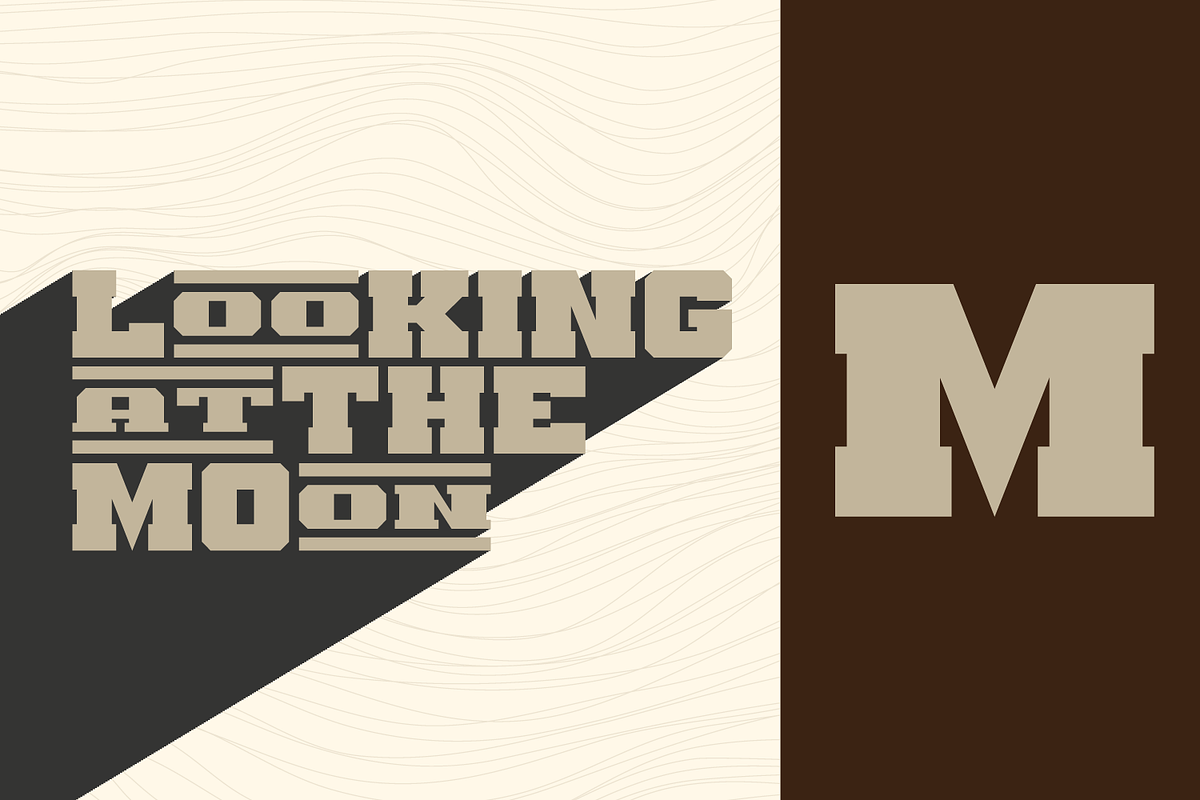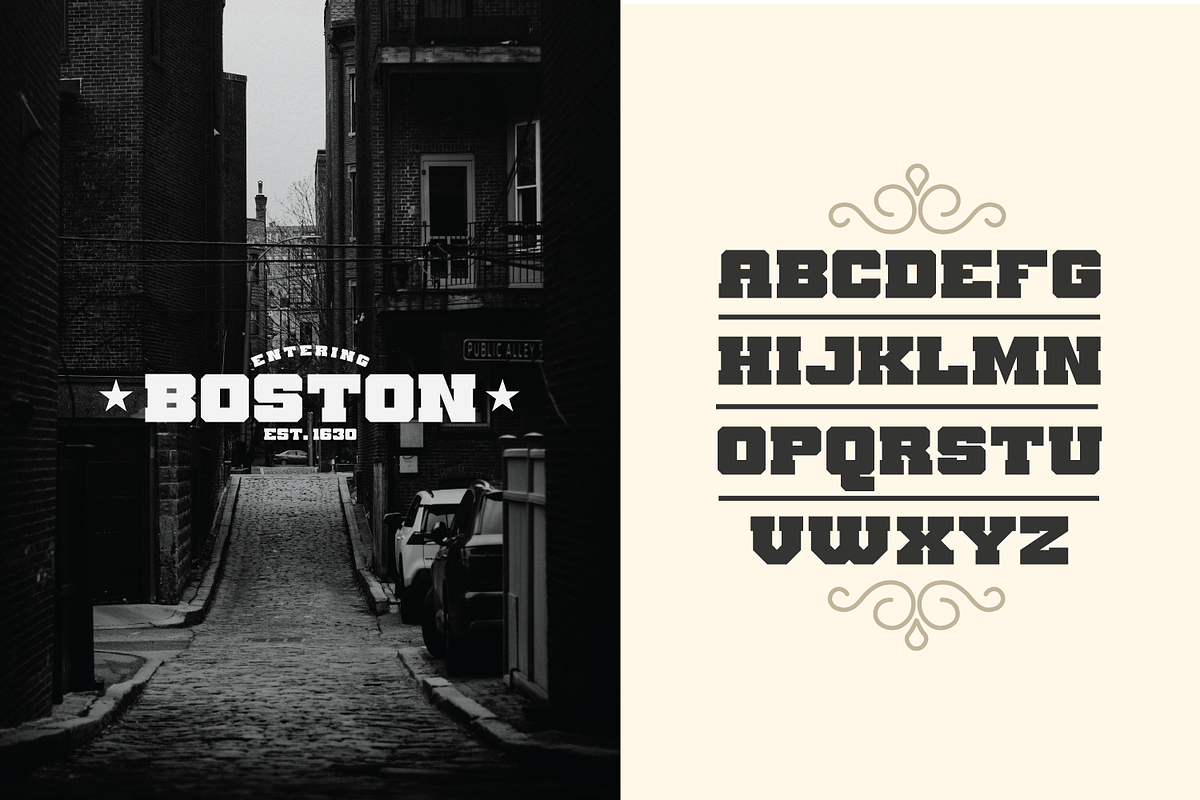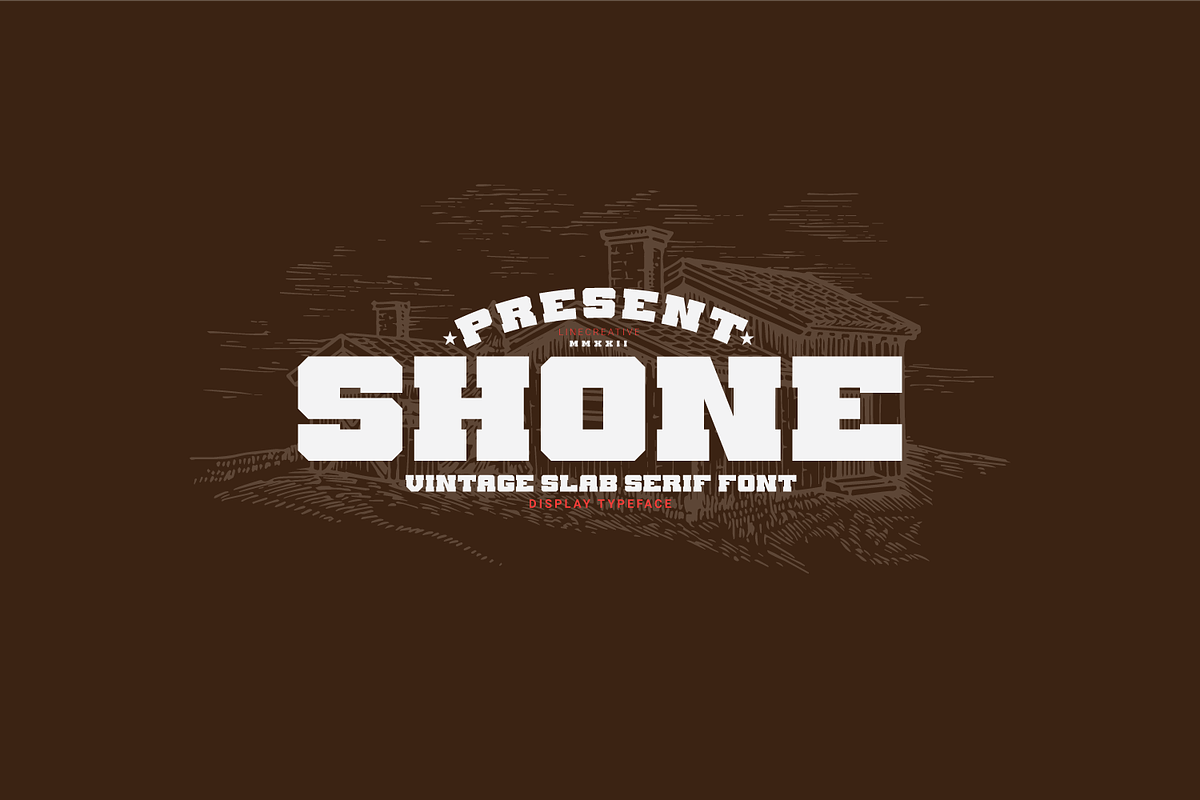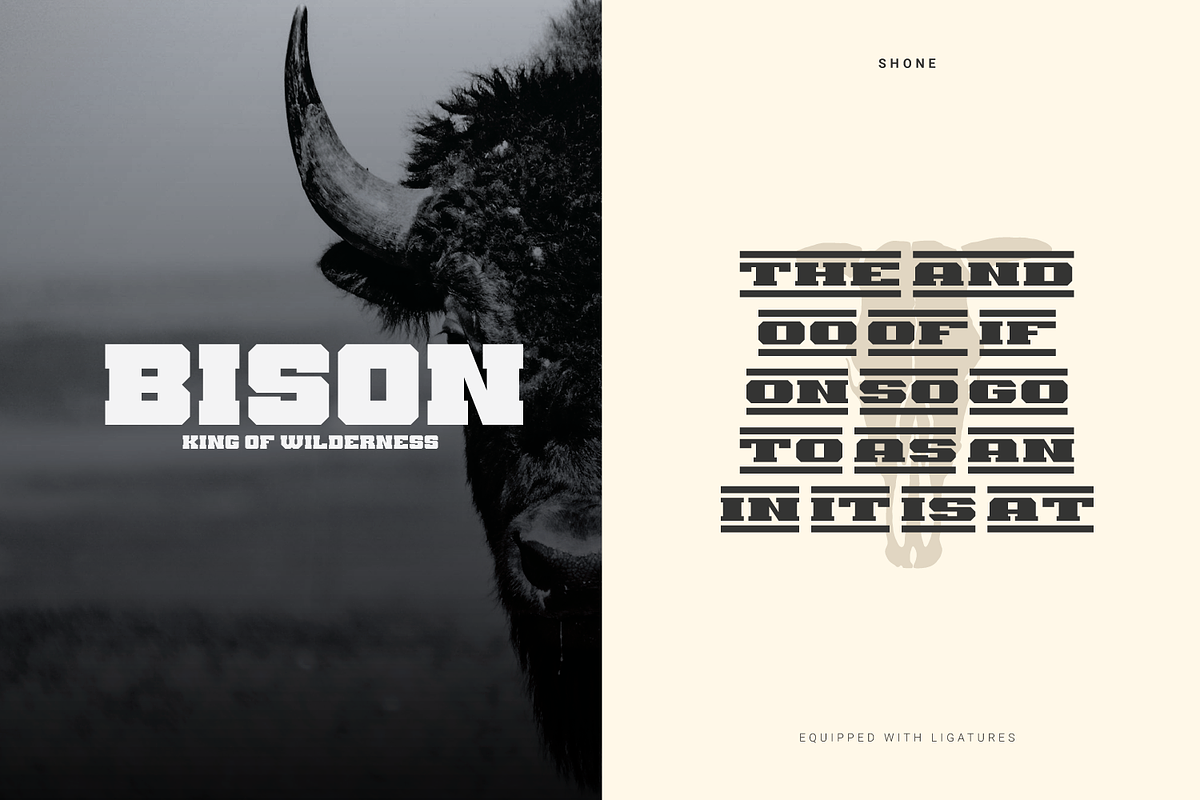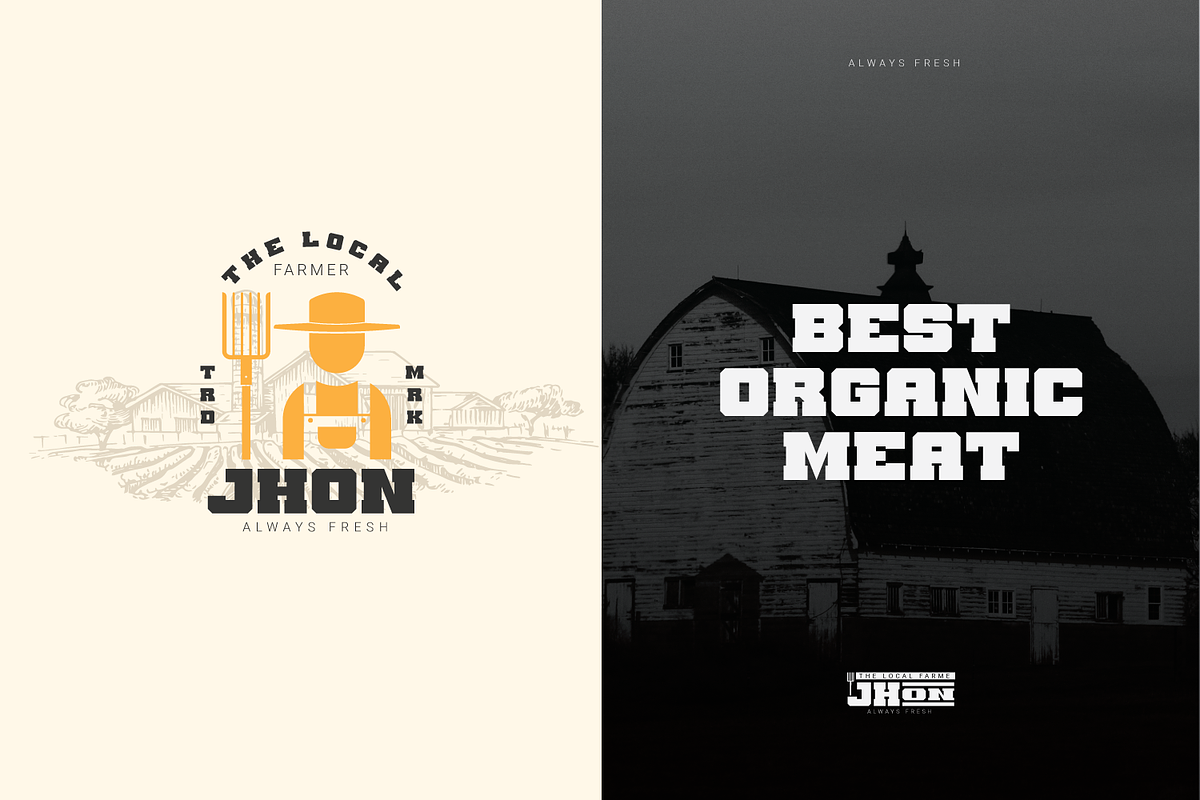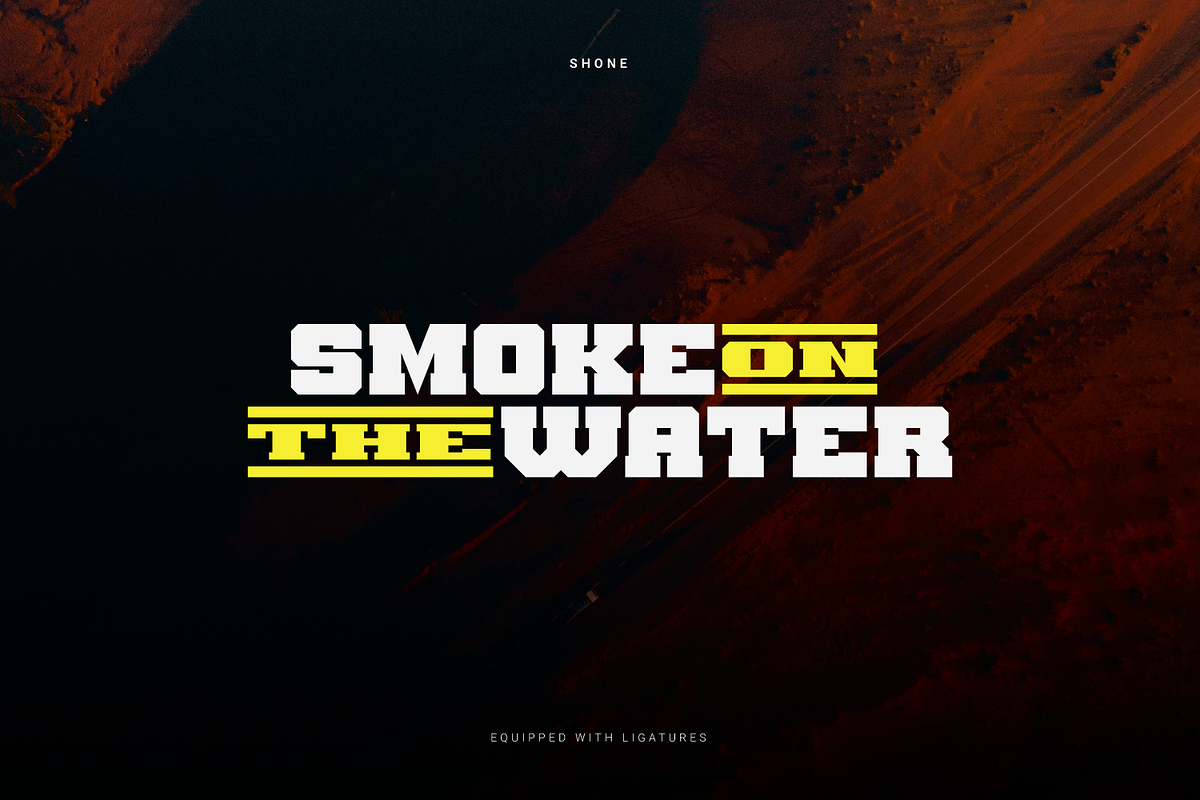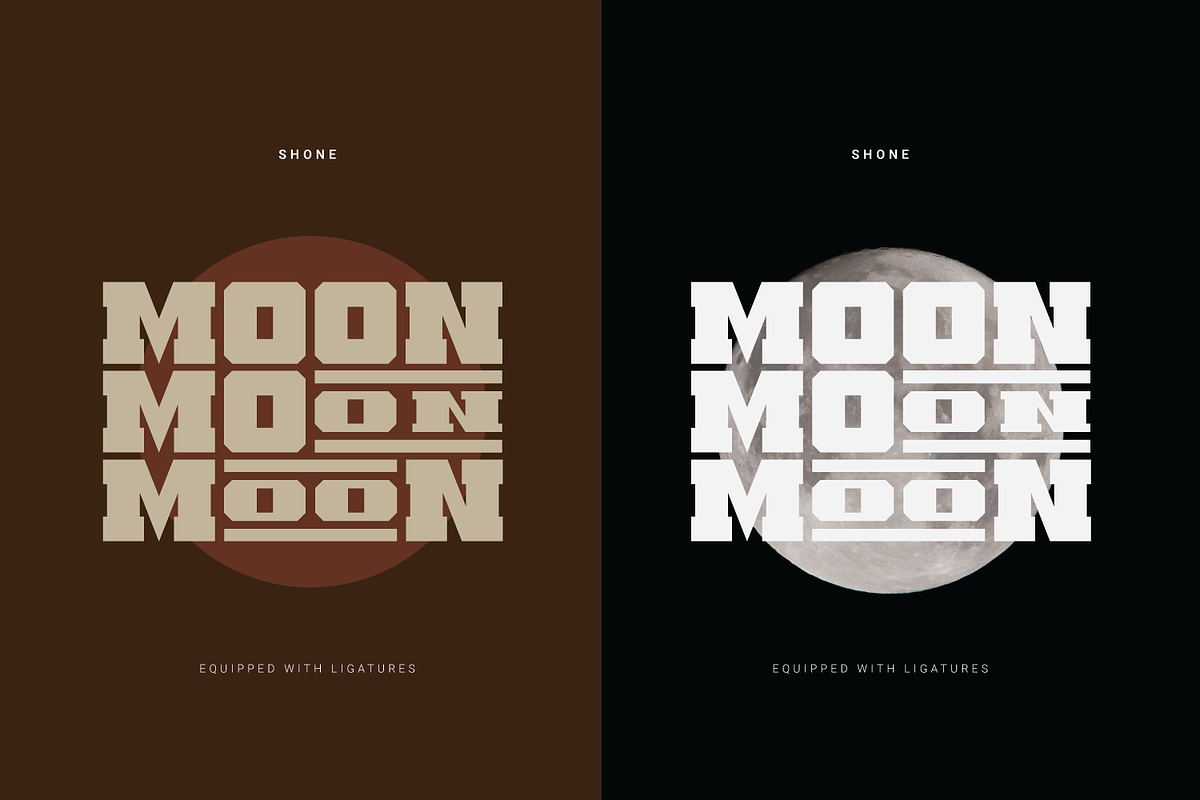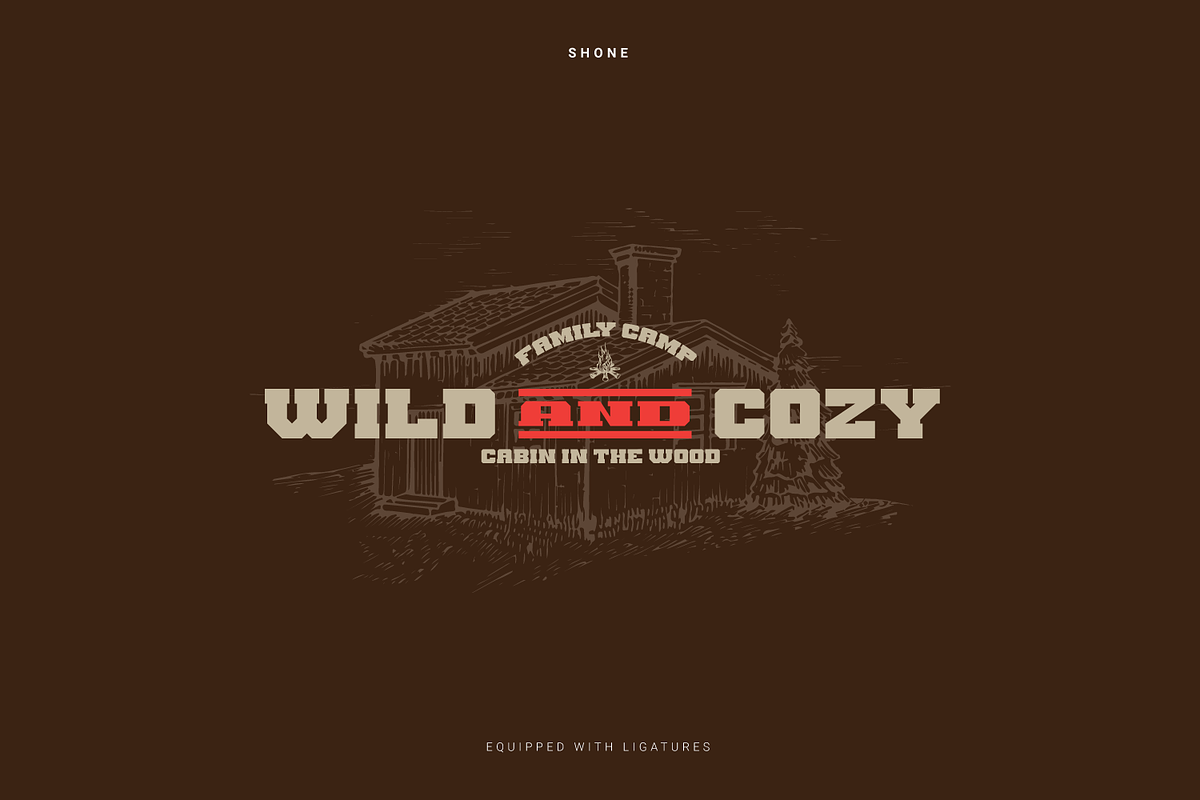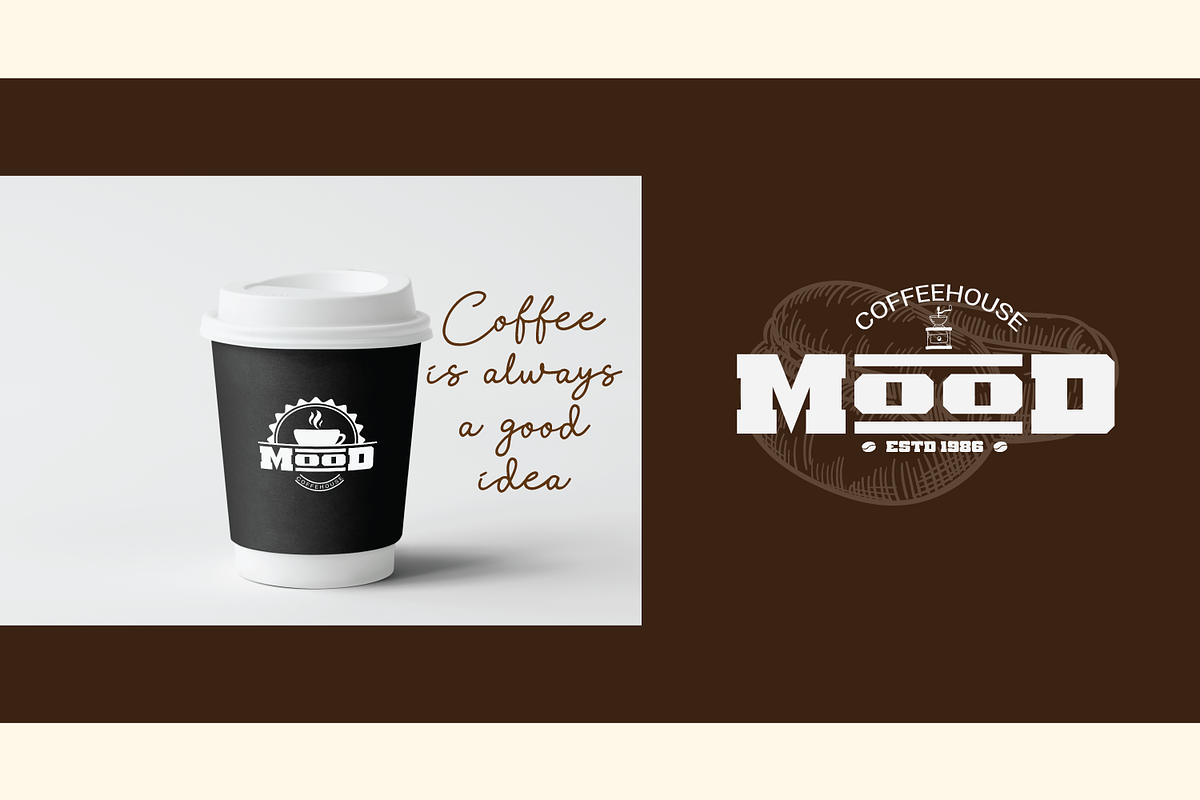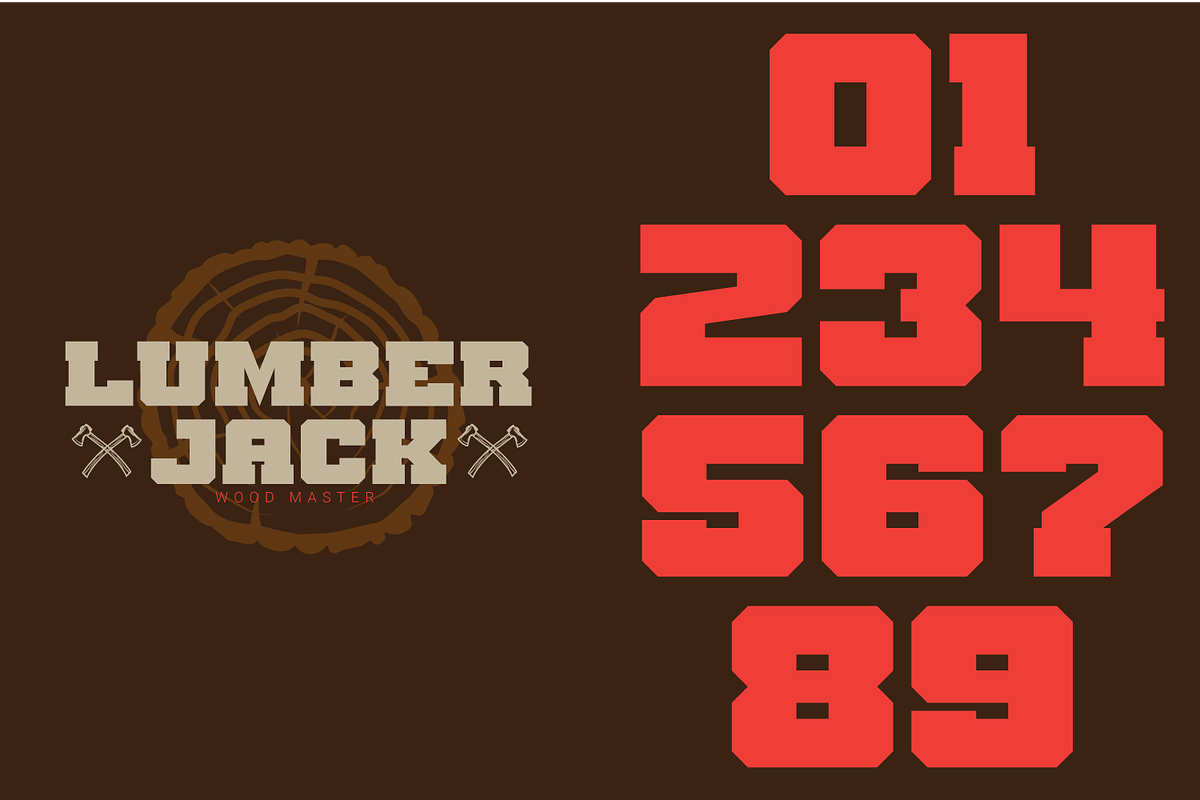
Shone
Shone slab serif inspired by vintage style with a touch of classic style. This font is built with solid foundations, strong visuals, old-school movement, and a modern minimalist style. Shone is perfect for Jersey , athletic, poster, branding projects, Logo design, Clothing Branding, product packaging, for magazine titles. for something with the theme of sports, album title, etc
Shone- A clean Slab serif font including Upper & Lowercase characters(ALL CAPS),
Ligatures Character
Supports Multi linguage (Latin Western Europe), Numbers and Punctuation